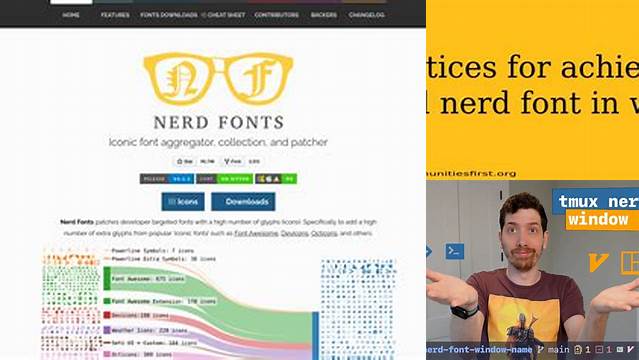
Hey everyone! Ever felt like your terminal or code editor was missing that oomph? Maybe you're seeing those dreaded tofu boxes instead of cool icons. That's where Nerd Fonts come in. And if you're rocking Windows, this guide is specifically for you. We'll dive deep into getting those awesome fonts installed and working perfectly. Let's get started!
What are Nerd Fonts and Why Should You Use Them?
So, what exactly are Nerd Fonts? Well, basically, they're regular fonts that have been patched to include a ton of extra glyphs, icons, and symbols. Think of it as supercharging your fonts! These icons are super useful for things like:
- Powerline: That fancy status bar in your terminal.
- Font Awesome: Icons for web development.
- Devicons: Icons related to programming languages and tools.
- Octicons: Icons from GitHub.
Using Nerd Fonts makes your terminal and editor look way cooler and more informative. You can see the status of your Git repo, the programming language you're using, and a bunch of other useful stuff, all at a glance. It's all about improving your workflow and making things look awesome.
Ultimately, the best Nerd Font for you depends on your personal preferences and the specific applications you're using. Try out a few different fonts to see which one you like best.